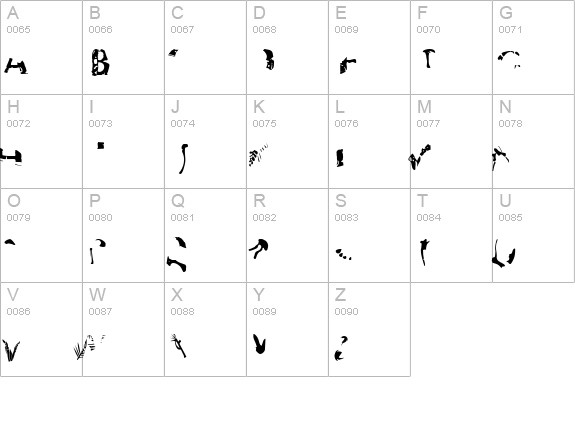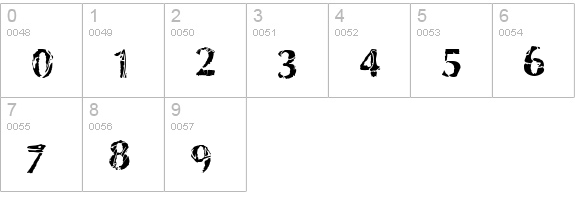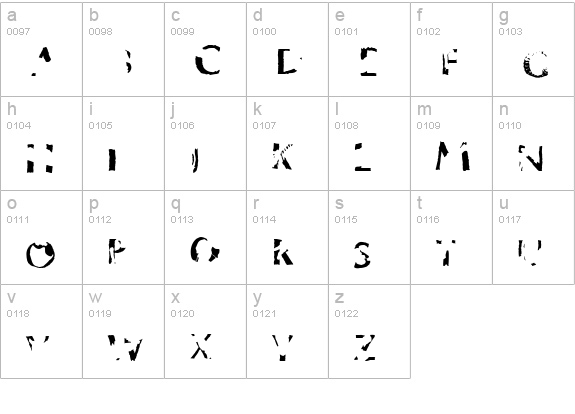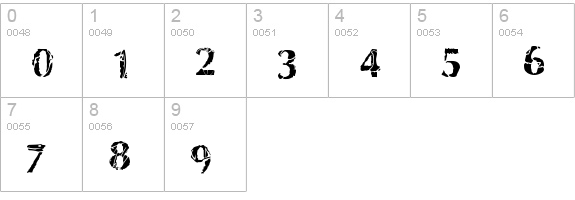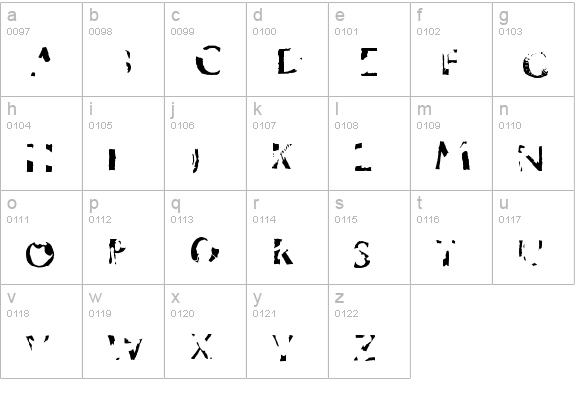
Introducing the majestic Dinosaur Fontasaurus font – a prehistoric-inspired typeface that brings a touch of ancient charm to your design projects. This unique font features bold, rugged letterforms reminiscent of the mighty creatures that once roamed the earth. With its sharp angles and powerful presence, Dinosaur Fontasaurus is sure to make a statement in any design setting. But the best part? This incredible font is available for free download at FontsMarket.com. That's right – you can bring the magic of the dinosaurs into your creations without spending a penny. Whether you're working on a poster, logo, website, or any other project that could use a touch of primal energy, Dinosaur Fontasaurus is the perfect choice. Don't miss out on this amazing opportunity to elevate your designs with this captivating font – download it now and unleash the power of the dinosaurs!